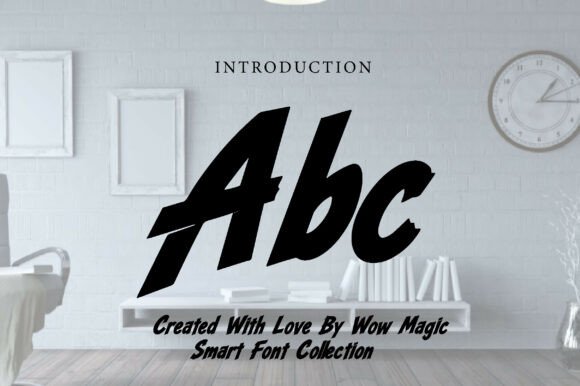
Unleashing the Power of Aliciya Font: A Designer’s Dream Come True
I still remember the design project that led me to discover Aliciya Font. I was working on a branding campaign for a streetwear client, and I needed a font that would capture the essence of urban energy and rebellion. After hours of scouring the internet for the perfect typeface, I stumbled upon Aliciya, and it was love at first sight! ✨
This high-octane display typeface has been a game-changer for my designs, and I’m excited to share its awesomeness with fellow designers, crafters, and creative hobbyists.
Aliciya Font: The Ultimate Choice for Bold Designs
Aliciya Font is a bold, italicized typeface characterized by sharp, rhythmic brushstrokes and aggressive, sheared terminals. Its heavy structural weight and edgy personality make it the perfect choice for:
• Independent streetwear branding
• Extreme sports graphics
• Music festival posters
• High-impact social media headers
Honest Review: The Good, the Bad, and the Quirky
• ✨ **Bold and eye-catching**: Aliciya Font demands attention and makes a statement in any design.
• ✅ **Versatile**: It can be used for a wide range of projects, from branding to advertising.
• 💥 **High-energy vibe**: The font’s dynamic and rebellious soul injects a burst of energy into any design.
Small Quirks and Limitations:
While Aliciya Font is an amazing typeface, it’s not without its quirks. Here are a few things to keep in mind:
• ⚠️ **Limited legibility**: Due to its bold and condensed nature, Aliciya Font may not be the best choice for body text or long paragraphs.
• 🤔 **Glyph limitations**: Some users have reported that the font’s glyph set is limited, which may not be ideal for projects requiring a wide range of special characters.
The Designer Inspiration Behind Aliciya Font
Aliciya Font was inspired by the urban landscapes and rebellious spirits of city streets. Its designer aimed to create a typeface that would capture the essence of dynamic energy and boldness. The result is a font that’s perfect for designers looking to add a touch of edginess to their projects.
Q: What is the best use for Aliciya Font?
A: Aliciya Font is best used for bold and eye-catching designs, such as independent streetwear branding, extreme sports graphics, music festival posters, and high-impact social media headers.
Q: Is Aliciya Font suitable for body text?
A: Due to its bold and condensed nature, Aliciya Font may not be the best choice for body text or long paragraphs. It’s better suited for headlines and titles.
Q: Is Aliciya Font available in different weights and styles?
A: Currently, Aliciya Font is available in a single weight and style, but its bold and eye-catching nature makes it perfect for a wide range of design applications.